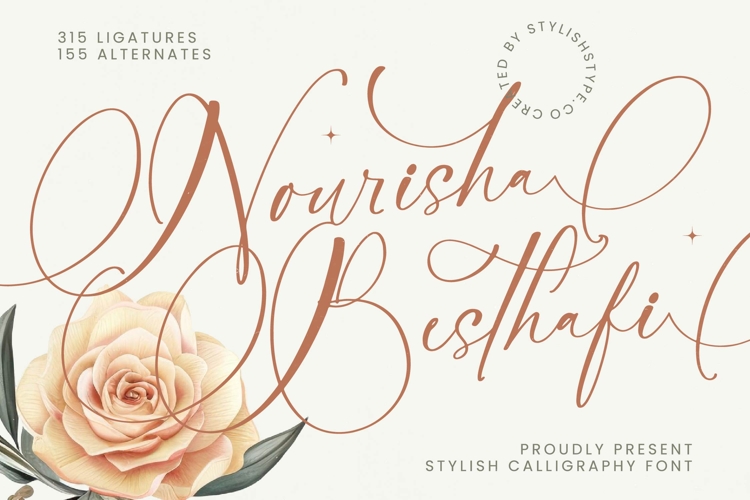
Nourisha Besthafi - Stylish Calligraphy Font
Elevate your designs with the breathtaking elegance of Font Nourisha Besthafi - Stylish Calligraphy Font Script, a masterpiece of modern script typography. This exquisite font captures the timeless allure of authentic calligraphy, featuring graceful, flowing strokes and a distinctive high-contrast aesthetic. Its refined lines and sophisticated curves imbue every word with an unparalleled sense of luxury and artisanal craftsmanship, making it the perfect choice for projects demanding exclusive charm.
Unleash boundless creative potential with the remarkable versatility of Font Nourisha Besthafi - Stylish Calligraphy Font Script. Boasting an impressive collection of 315 ligatures and 155 alternates, this font offers unparalleled customization, allowing designers to craft truly unique and expressive typographic compositions. These rich stylistic alternatives ensure every headline, logo, or invitation feels genuinely bespoke, adding depth and a personalized touch that sets your work apart.